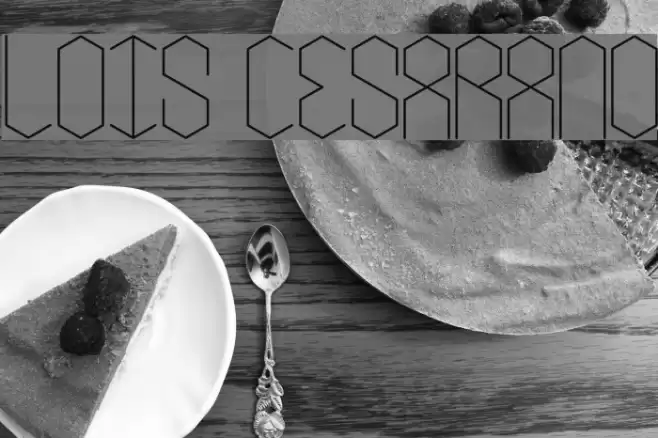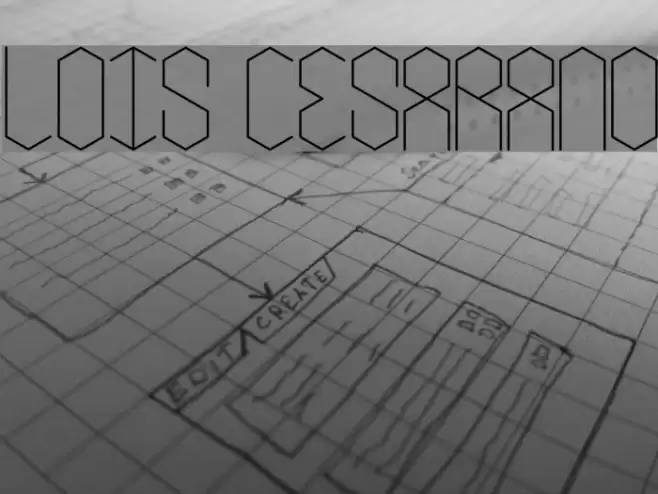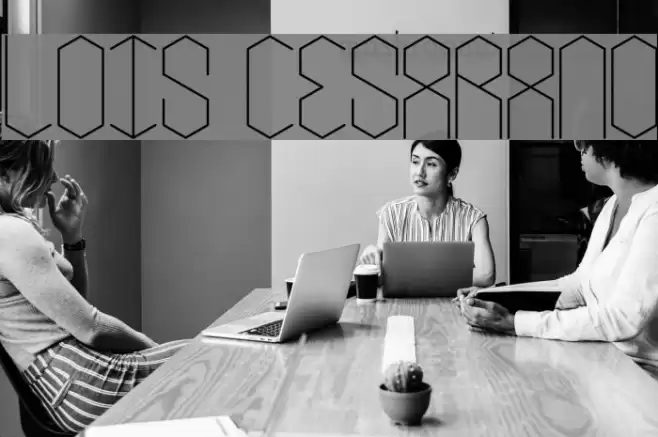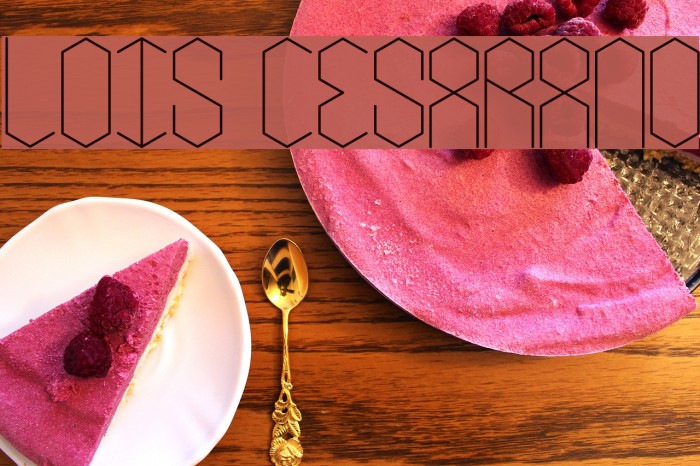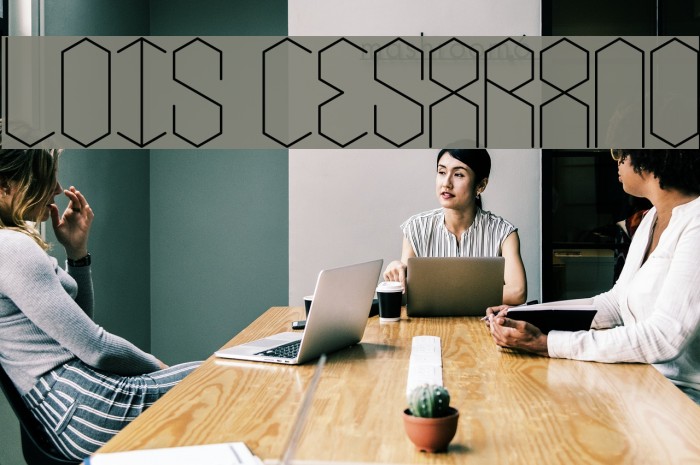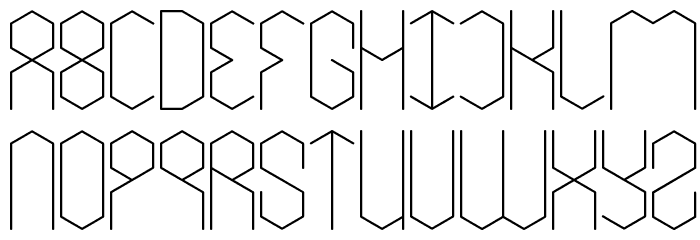
lois Cesarano Font
lois Cesarano Description
This font features a unique geometric design with each character formed by a series of straight lines and angles, creating a modern and futuristic appearance. The letters are constructed with consistent line thickness, giving them a uniform look. The angular style is reminiscent of architectural or mechanical drawings, making it stand out as a display font. The uppercase and lowercase letters share similar structural elements, maintaining a cohesive aesthetic throughout the alphabet. Numbers and special characters follow the same design principles, ensuring a harmonious overall style.
A geometric, angular font with a modern, futuristic design from Uncategorized fonts.
- Proposed Projects: Ideal for technology branding, sci-fi themed projects, architectural designs, and modern art displays.